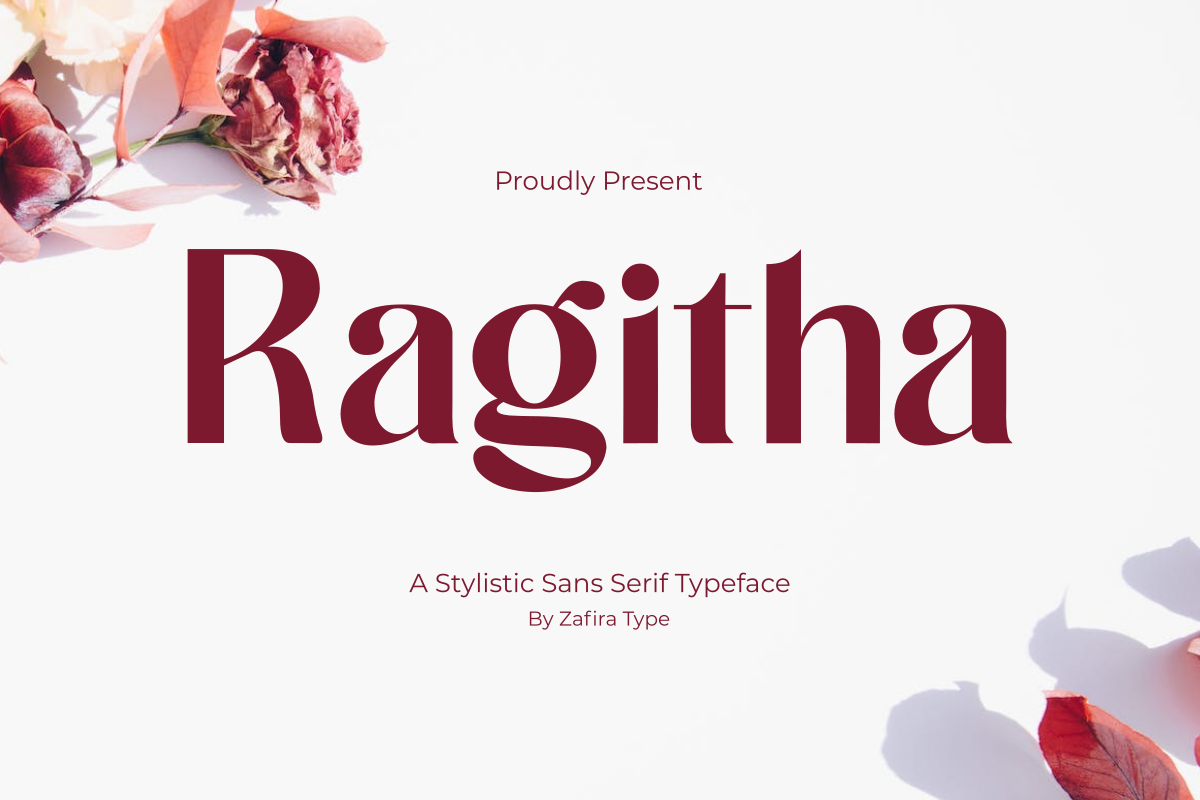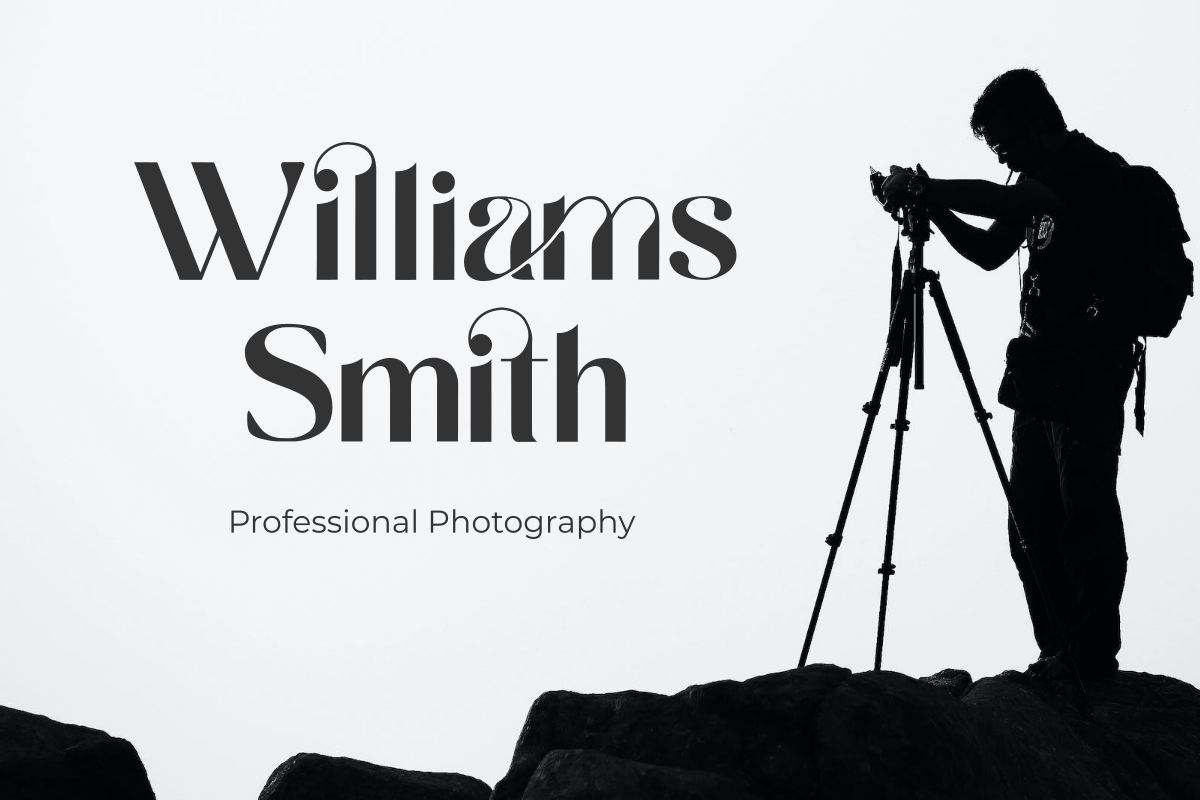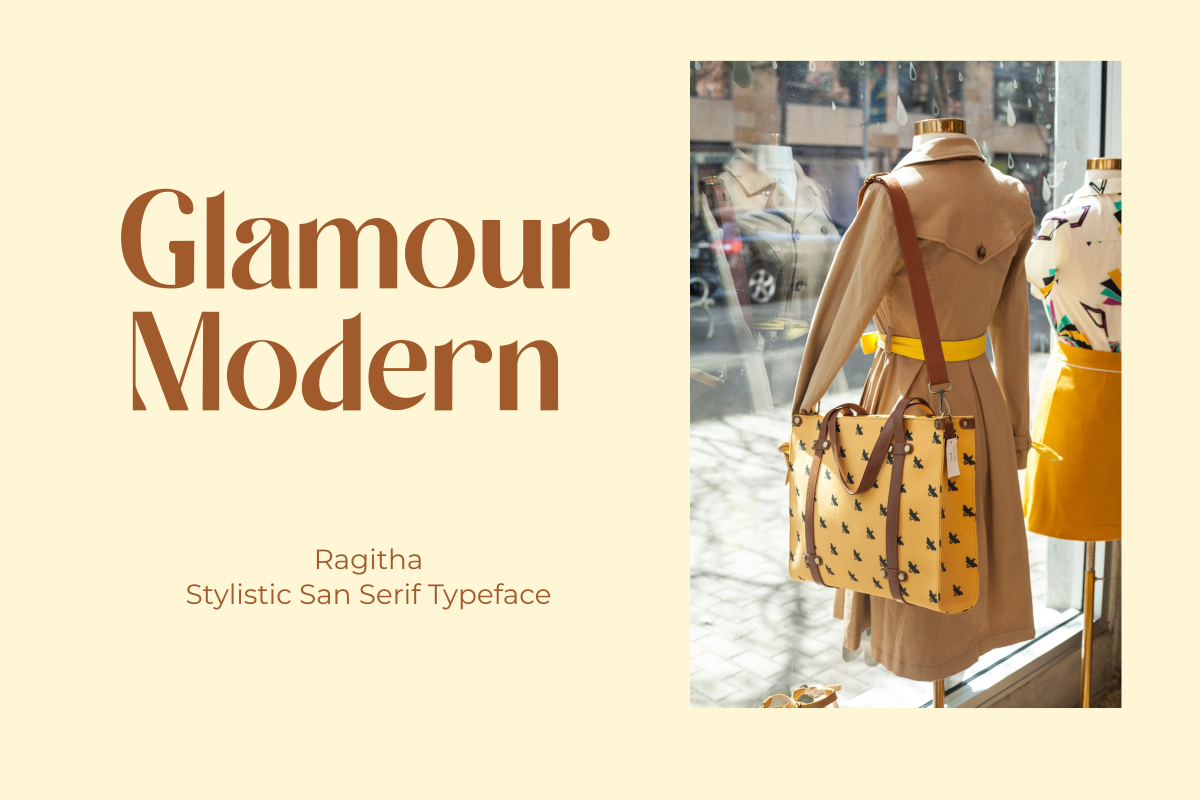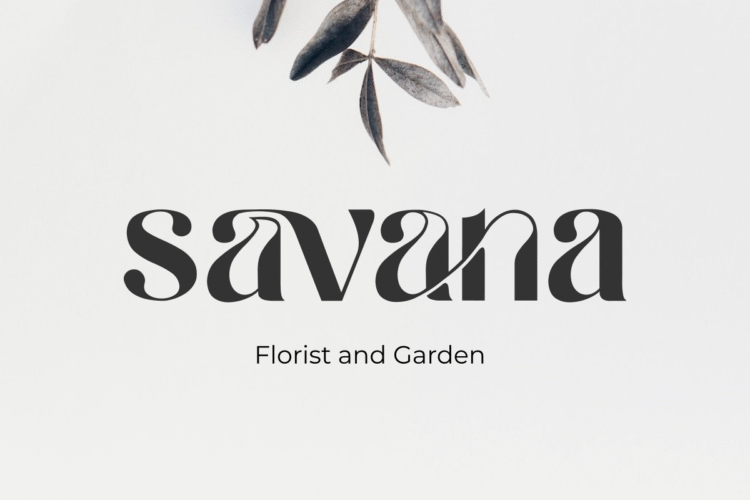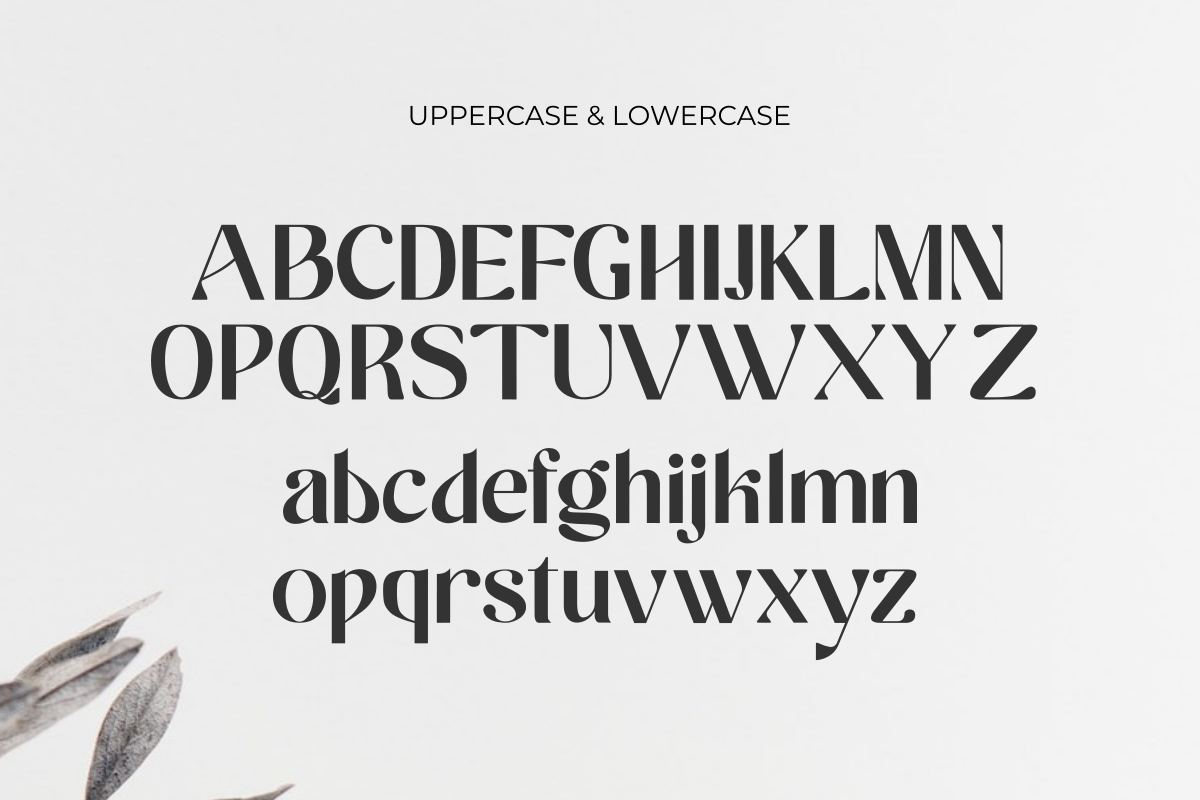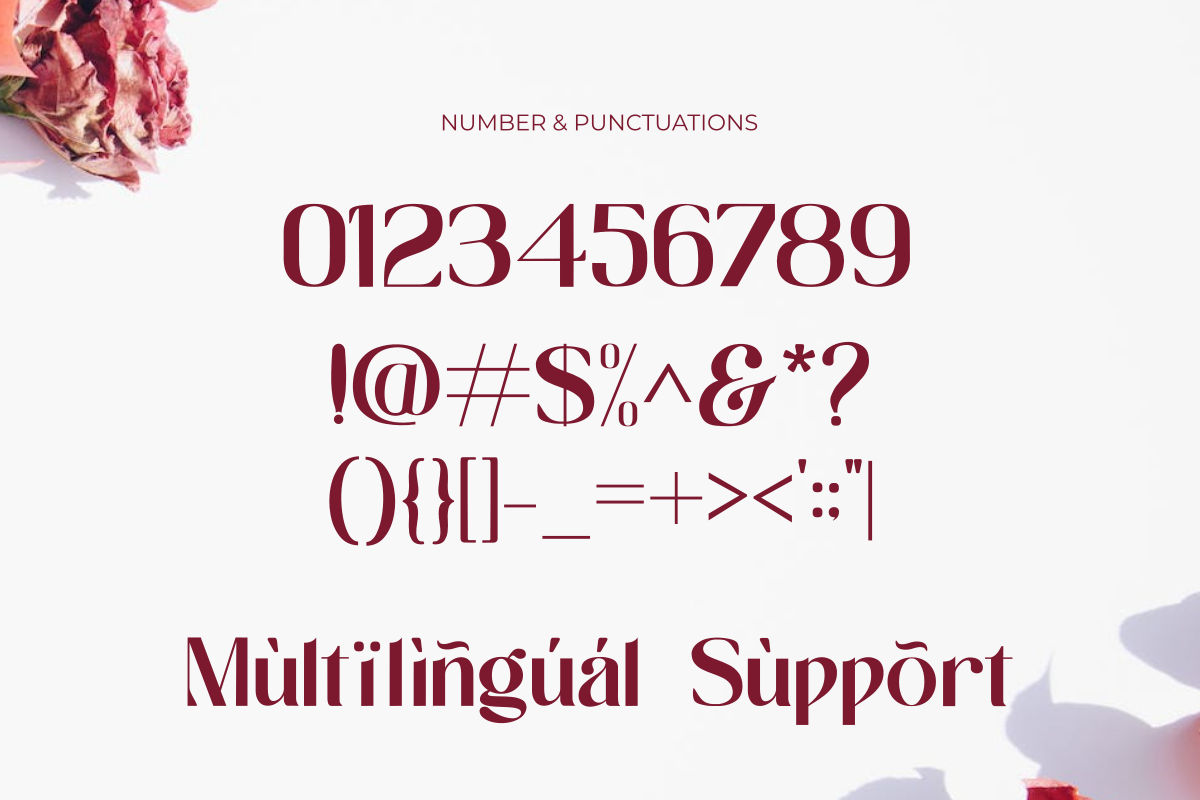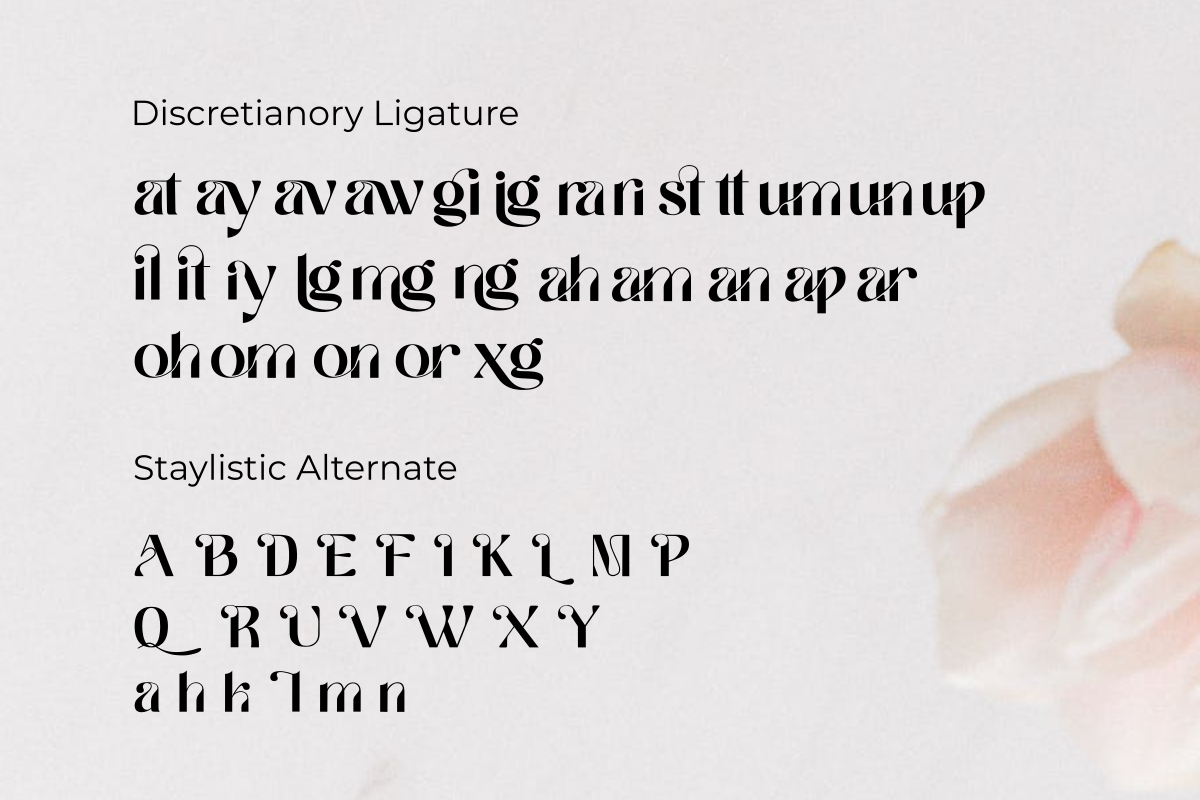
Ragitha
Ragitha is a unique and modern sans-serif font perfected with ligatures and alternatives. Ragitha is a highly versatile font with a unique, modern, and elegant design full of harmonious curves to make your designs perfect with a unique and elegant impression. Ragitha is created with many ligatures and alternates to make it easy for you to create elegant and charming works. This font can be used for various design projects, including logos, brand identity, product branding, web design, advertising flyers, and more.